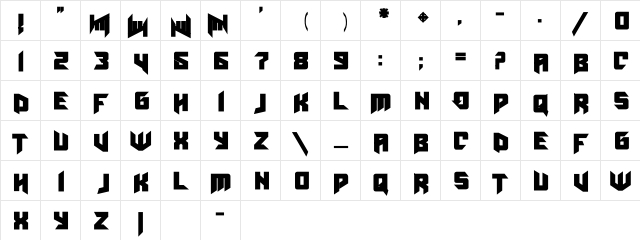
AmazObitaemOstrovBold Regular
Design Context for AmazObitaemOstrovBold Typeface
AmazObitaemOstrovBold is a composed and adaptable typeface that performs quietly and consistently across a wide range of design contexts. Its bold stroke weight gives it real presence on the page.